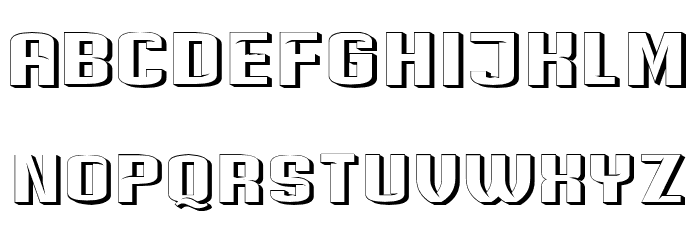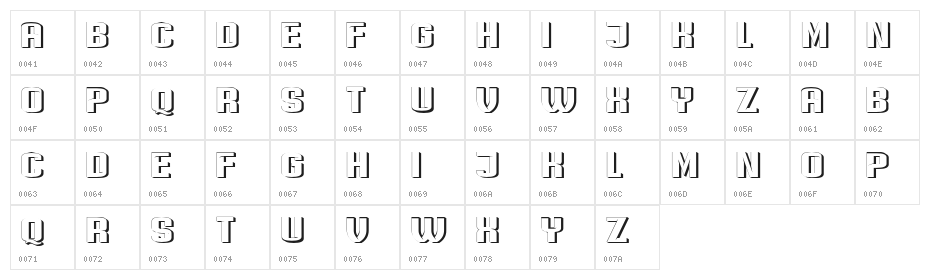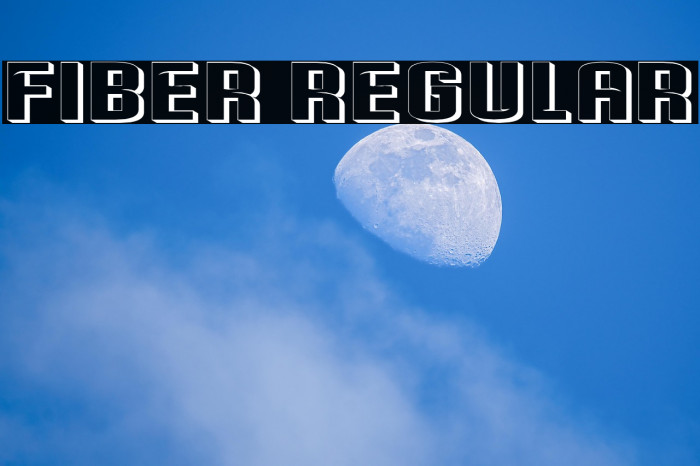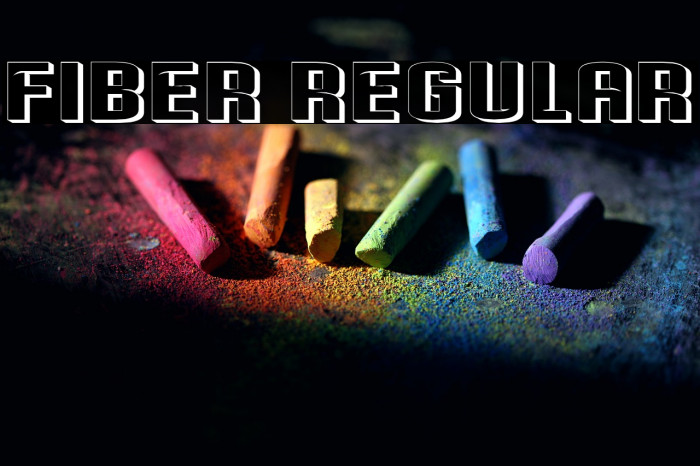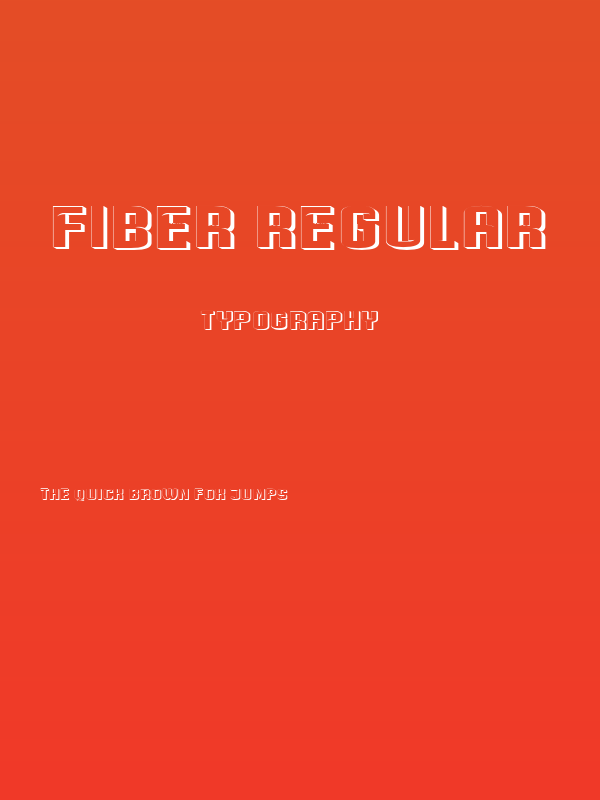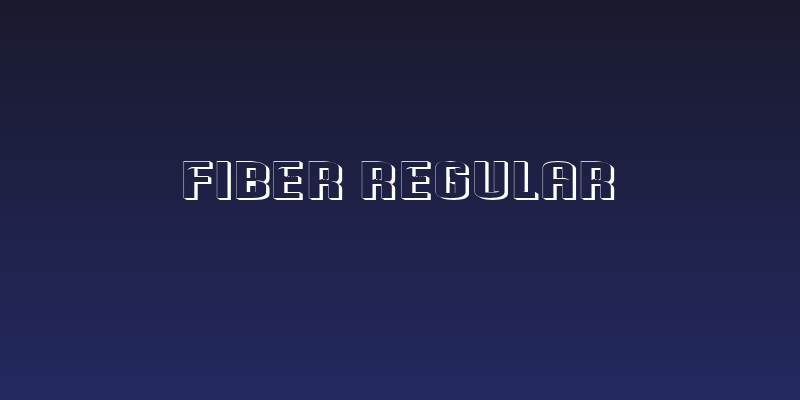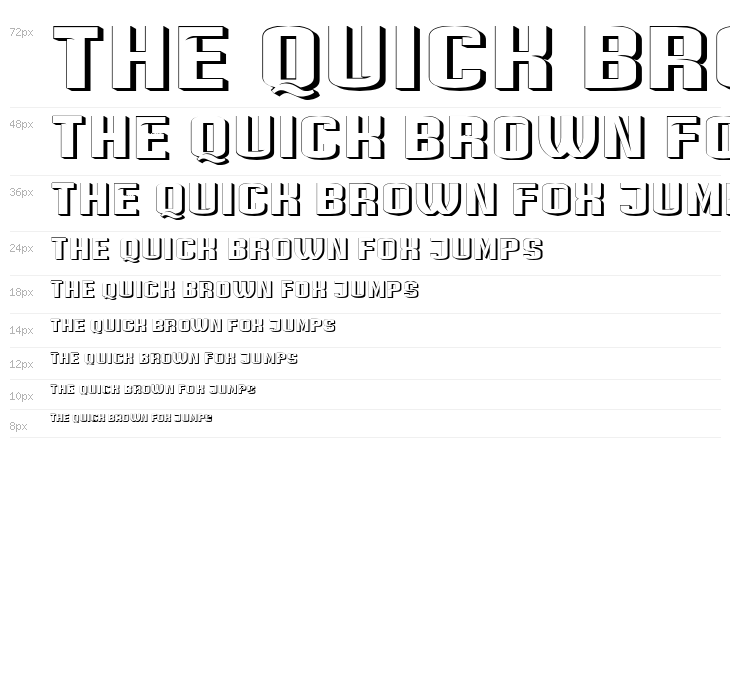
Fiber Regular Font
Fiber Regular Description
This font features a bold, geometric design with a three-dimensional effect created by its shadowed outline. The uppercase letters are structured with sharp angles and clean lines, giving it a modern and industrial feel. The characters are evenly spaced, providing a balanced and uniform appearance. Its unique style makes it stand out, suitable for eye-catching designs. The font's shadow effect adds depth, making it ideal for projects that require a strong visual impact.
| Proposed Projects | Ideal for posters, logos, headlines, and any design requiring a strong, modern aesthetic. |